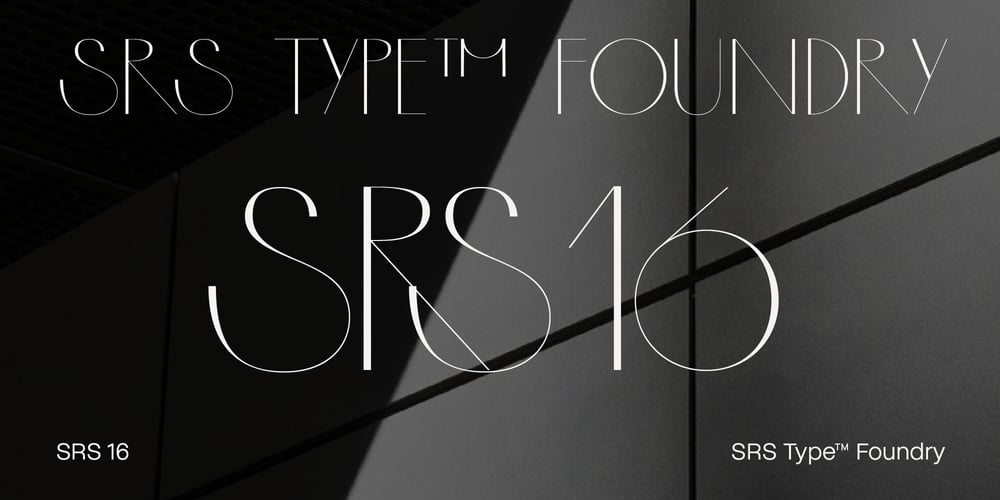
SRS 16 Font Family was designed by Soung-ryung Shin and published by SRS Type. SRS 16 contains 2 styles and family package options. SRS 16 is a typeface inspired by geometric architecture, featuring elegant and delicate curves as well as straight lines. Using this typeface can achieve a design that is both sophisticated and classic, while also modern and unique. SRS 16 is composed exclusively of uppercase letters and comes in two display styles: Regular and Bold.